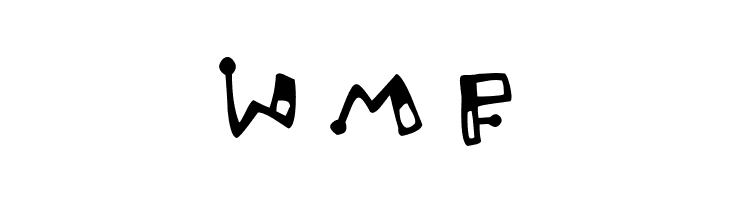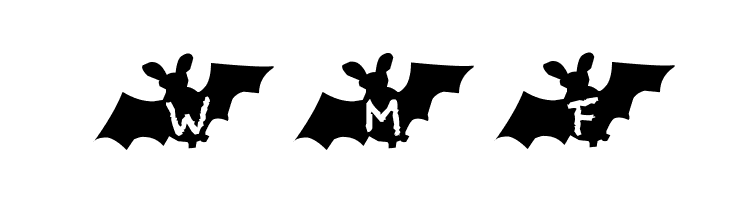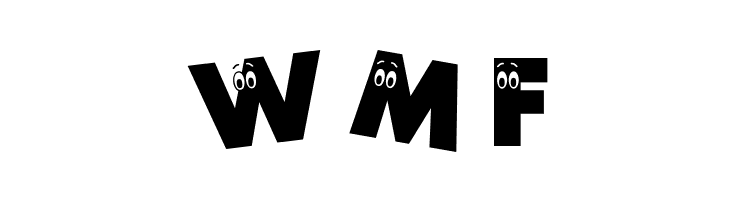
A bold, playful handwritten font with rounded, dynamic letterforms.
A playful, handwritten font with tall, narrow letters and a whimsical style.
A playful, hand-drawn font with tall, narrow letters and a quirky style.
A playful, handwritten italic font with a lively and energetic style.
A playful, handwritten italic font with a bold and dynamic style.
A playful, robot-themed decorative font with dynamic and whimsical character designs.
A whimsical font featuring dancing skeleton characters, perfect for decorative and playful designs.
A playful, handwritten font with a casual and approachable style.
Whimsical hand-drawn decorative dingbats with floral and ornate motifs.
Hand-drawn decorative dingbat font with floral and ornate motifs.
A playful, hand-drawn font with a whimsical and casual style.
A bold, graffiti-inspired font with sharp, angular lines.
A bold, playful font with clown faces integrated into each character, perfect for fun and decorative projects.
A bold, distressed font with a rugged, vintage appearance.
A playful, hand-drawn font with bold, cartoon-like characters and decorative elements.
A bold, expressive handwritten font with dynamic strokes and a playful style.
A playful, handwritten font with dynamic strokes and a casual style.
A playful, handwritten font with bold strokes and quirky character spacing.
A playful, handwritten font with a whimsical and informal style.
A playful, hand-drawn font with whimsical and decorative elements.
A playful, bold font with rounded, cartoon-like characters and whimsical pig faces.
A Gothic-style font with sharp, angular lines and ornate detailing, ideal for dramatic and vintage designs.
A playful, bold font with thick, rounded characters and a whimsical style.
A pixelated, futuristic font with a robotic, tech-inspired design.
Abstract decorative symbols, not a valid font.
A bold, playful font with exaggerated curves and dynamic flow.
A pixelated, grid-like font with a retro digital aesthetic.
A bold, distressed font with a grunge texture and rugged appearance.
A geometric, modern font with clean lines and a futuristic style.
A playful, scribbled font with a textured, hand-drawn appearance.